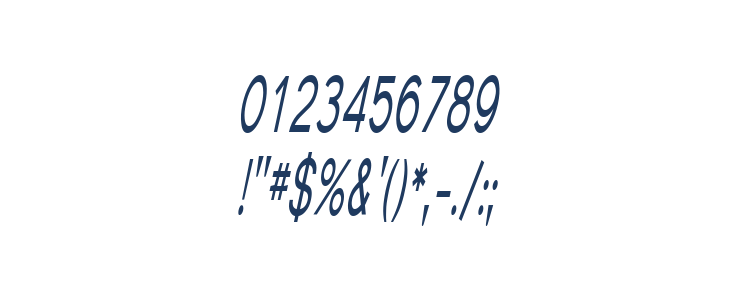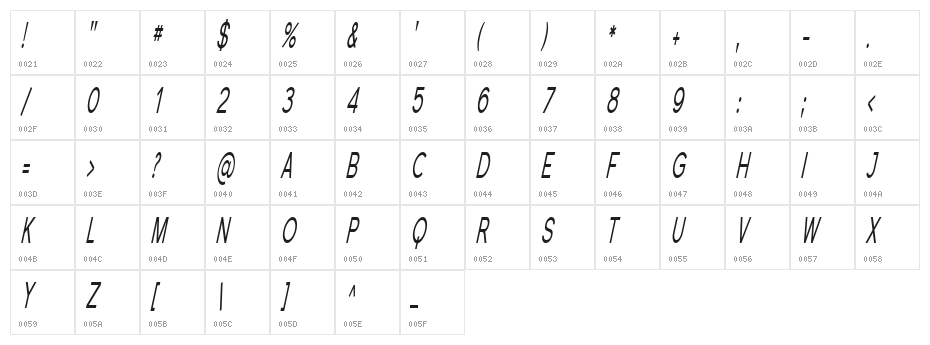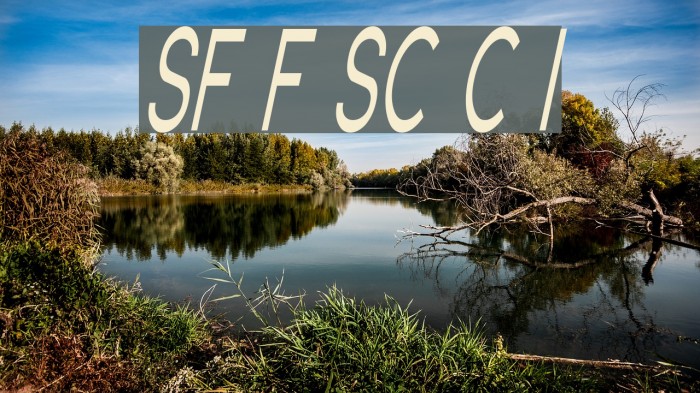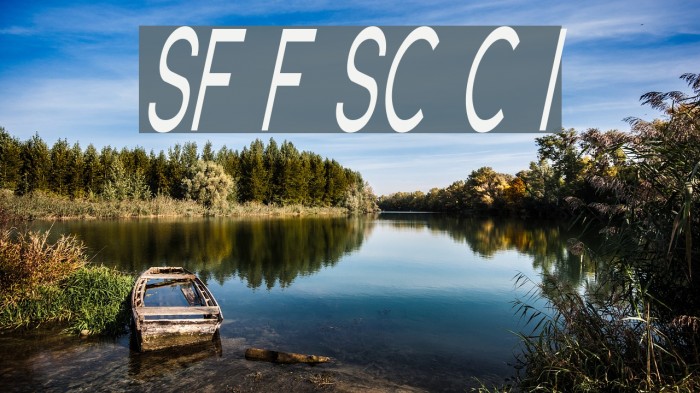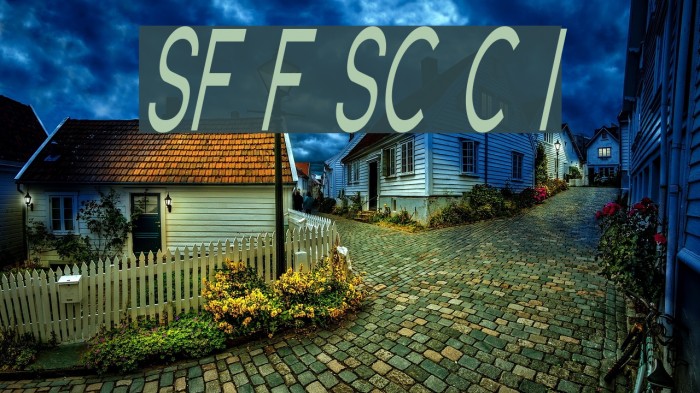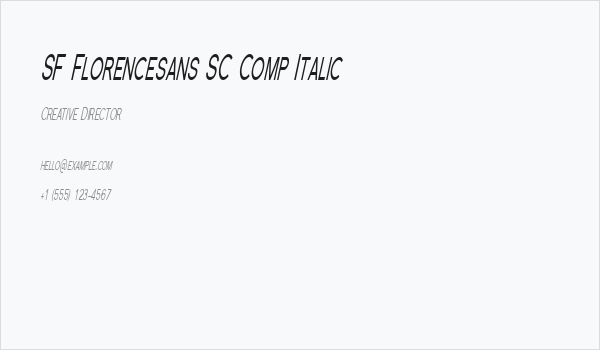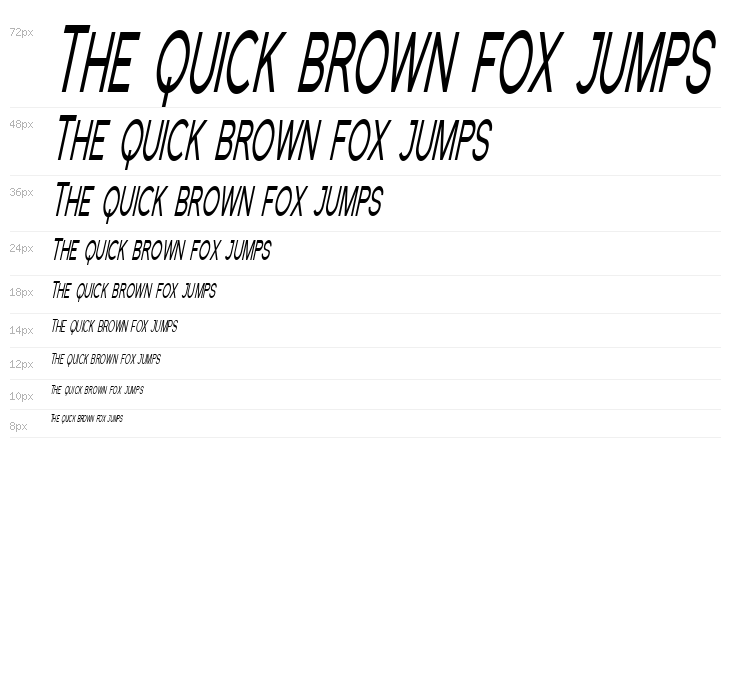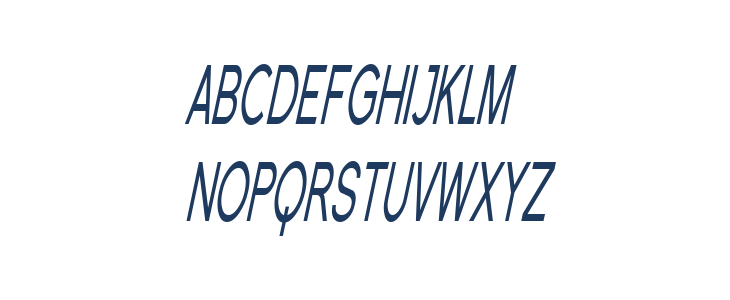
SF Florencesans SC Comp Italic Font
SF Florencesans SC Comp Italic Description
This font exhibits a sleek and modern sans-serif style with a condensed and italicized form. The characters are sharply defined with a consistent stroke width, giving it a clean and professional appearance. The italic slant adds a dynamic and forward-moving feel, making it suitable for contemporary designs. The condensed nature allows for efficient use of space, making it ideal for headlines or areas where space is limited. The numerals and special characters maintain the same stylistic features, ensuring uniformity across different types of content.